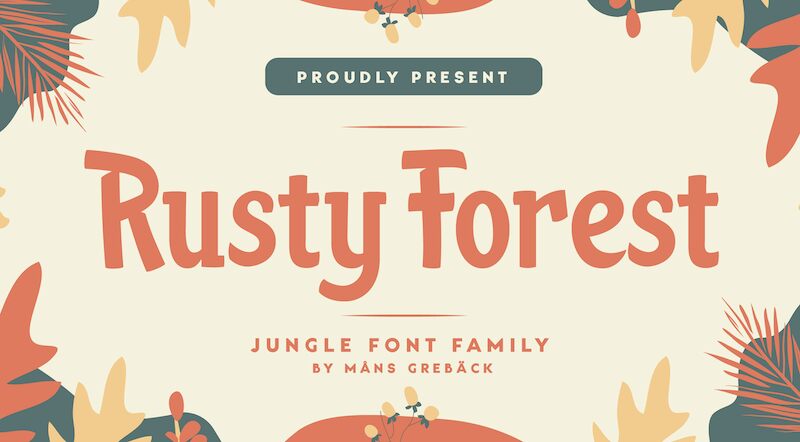
Rusty Forest, the captivating display font designed by Mans Greback, is the perfect typeface for projects that require a whimsical and playful touch. With its cartoon style and semi-condensed width, Rusty Forest adds a touch of fun to any design project. Whether you're creating a children's book cover or an advertising campaign for a jungle-themed product, this font will bring your ideas to life. So why not explore the wild side of typography with Rusty Forest? It's time to unleash your creativity and let this font take you on a journey through the jungle!
Rusty Forest's rustic appearance, created by its brush-style strokes, evokes images of a cabin in the woods, surrounded by the beauty of nature. It's as if you can smell the campfire smoke and hear the rustling of leaves in the wind.
Rusty Forest is created by human hand and artificial intelligence.